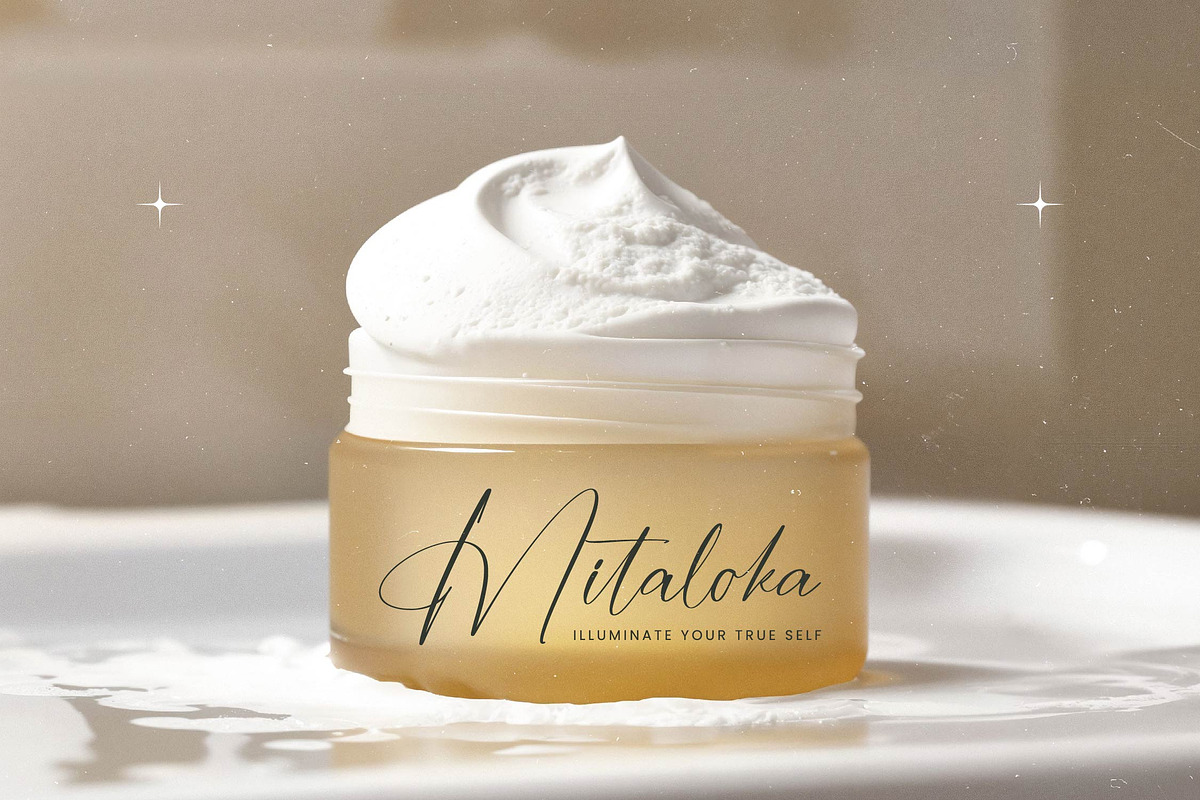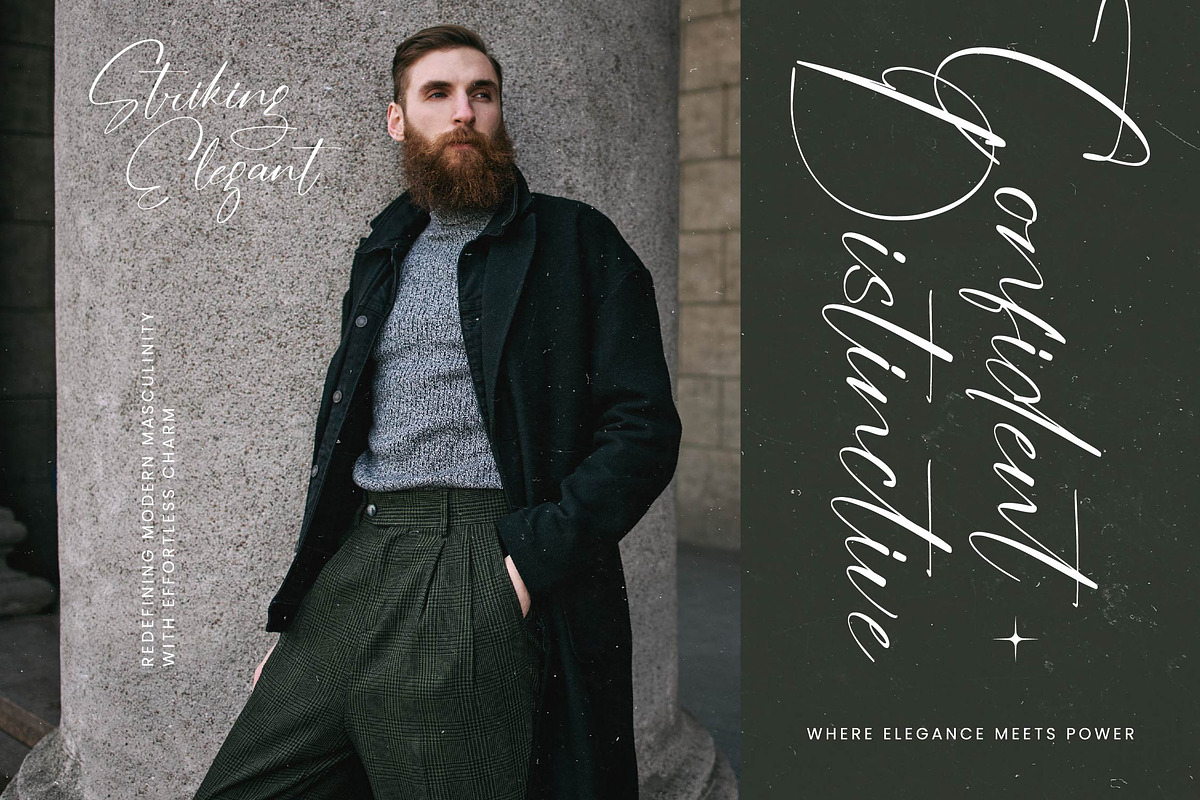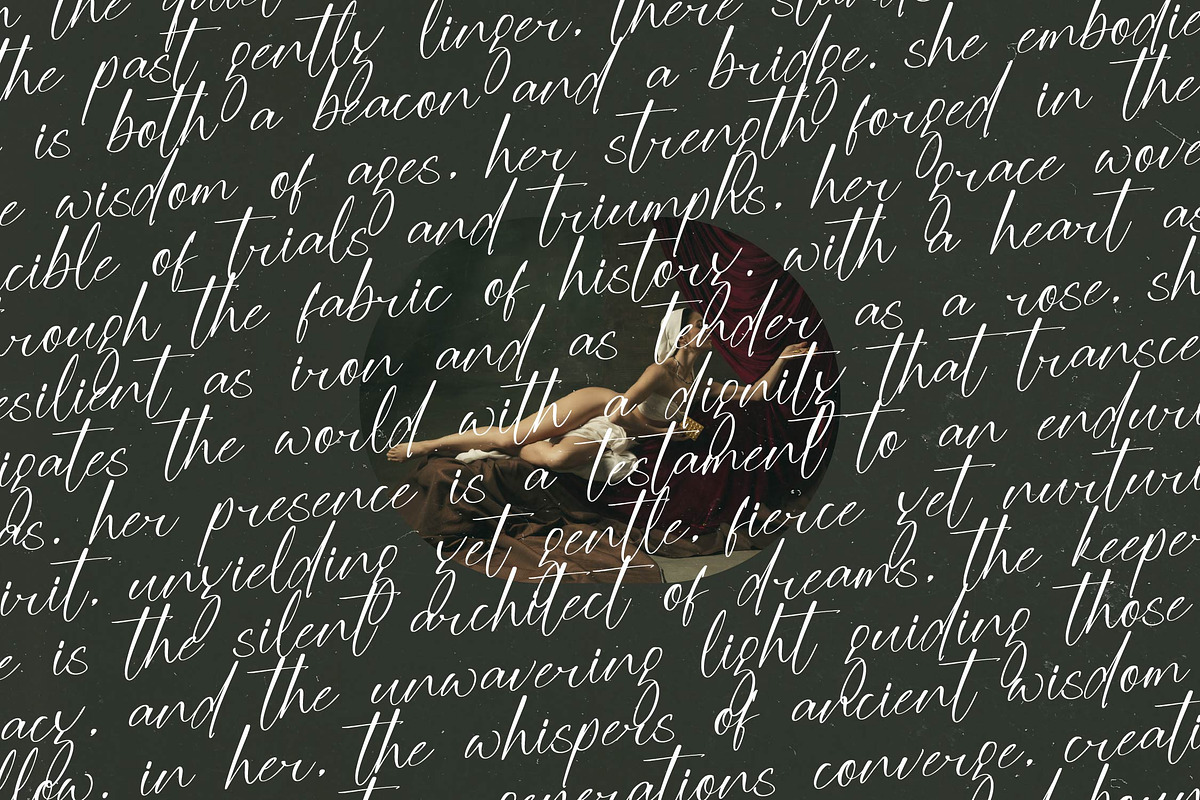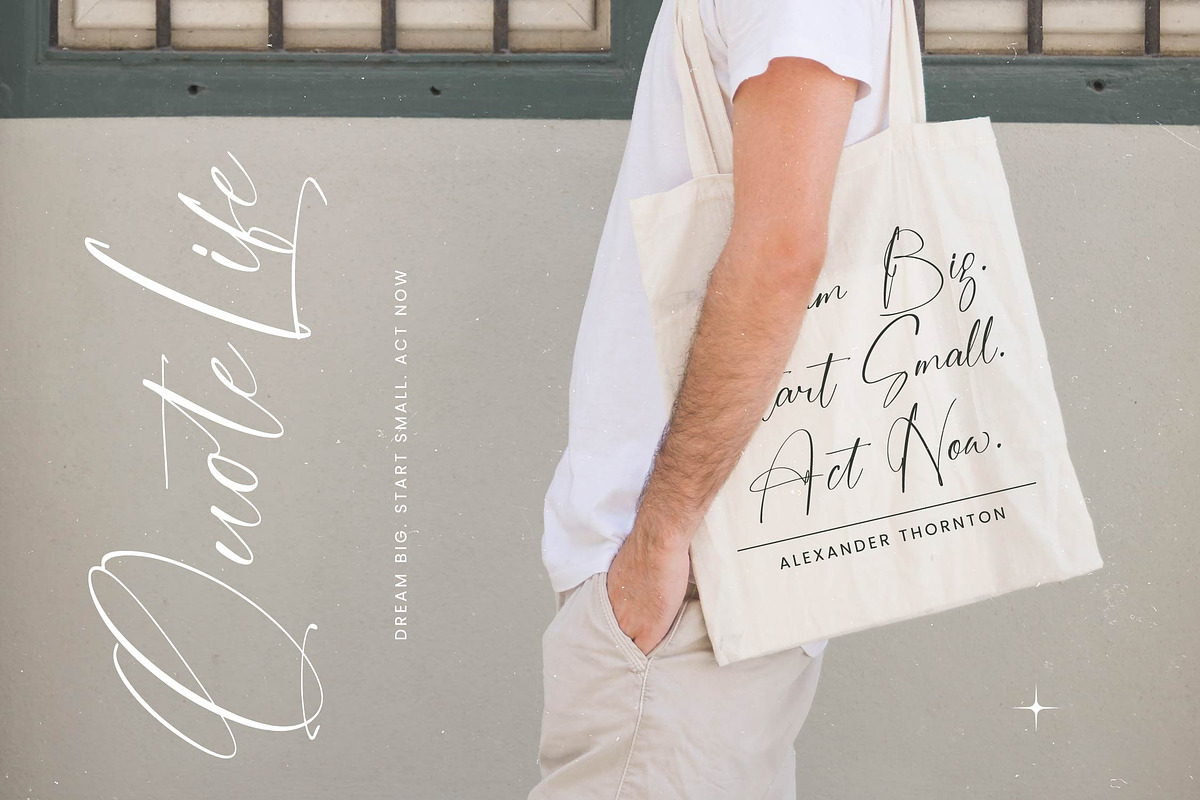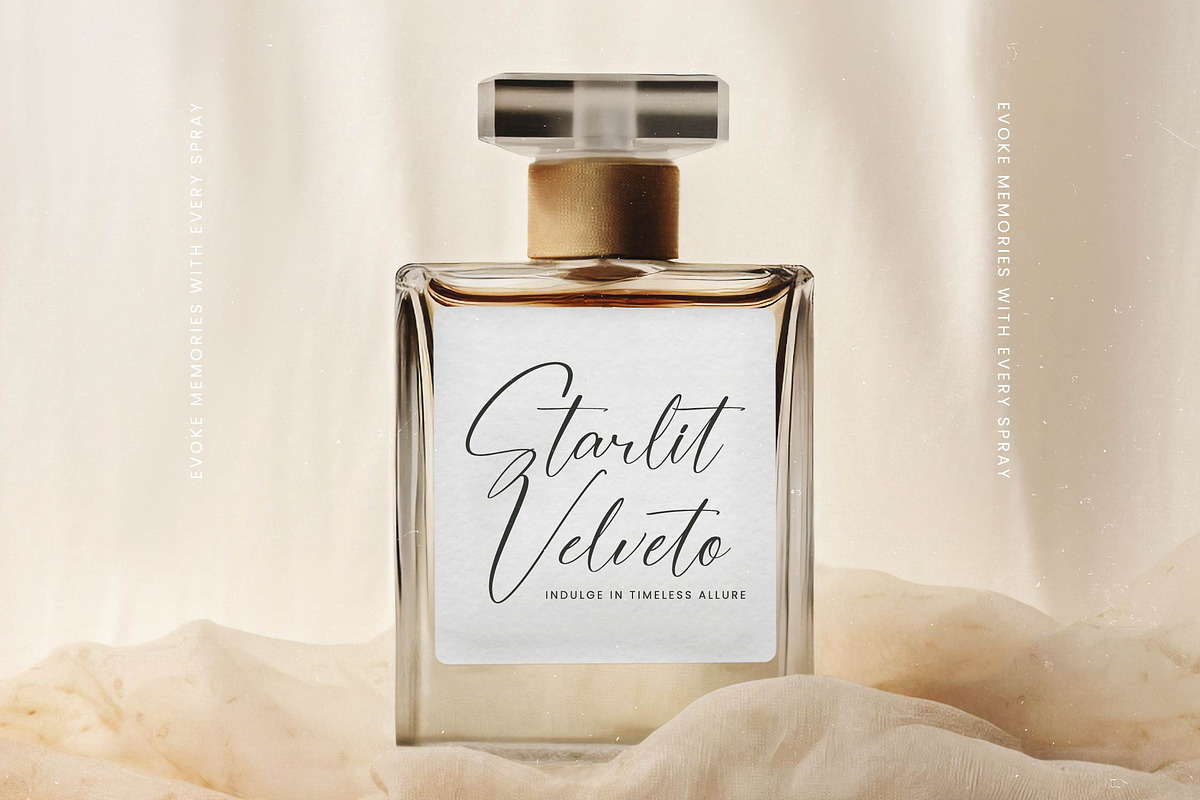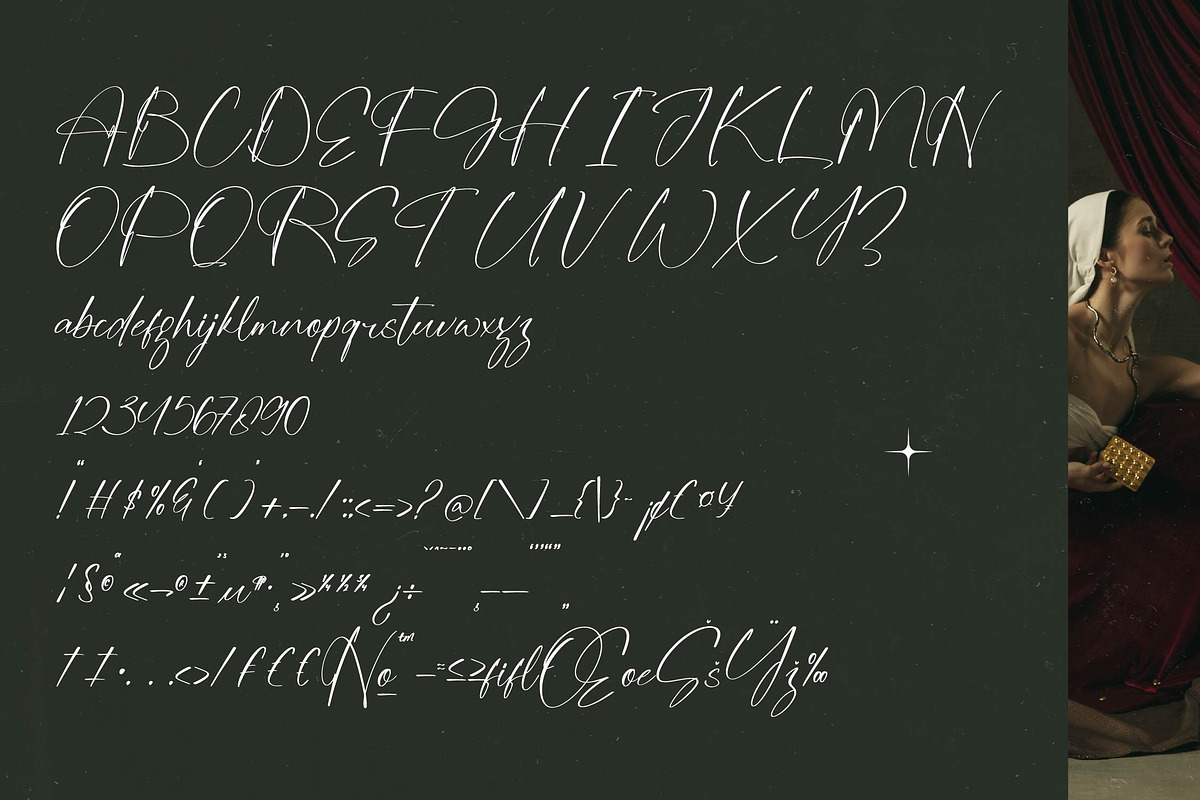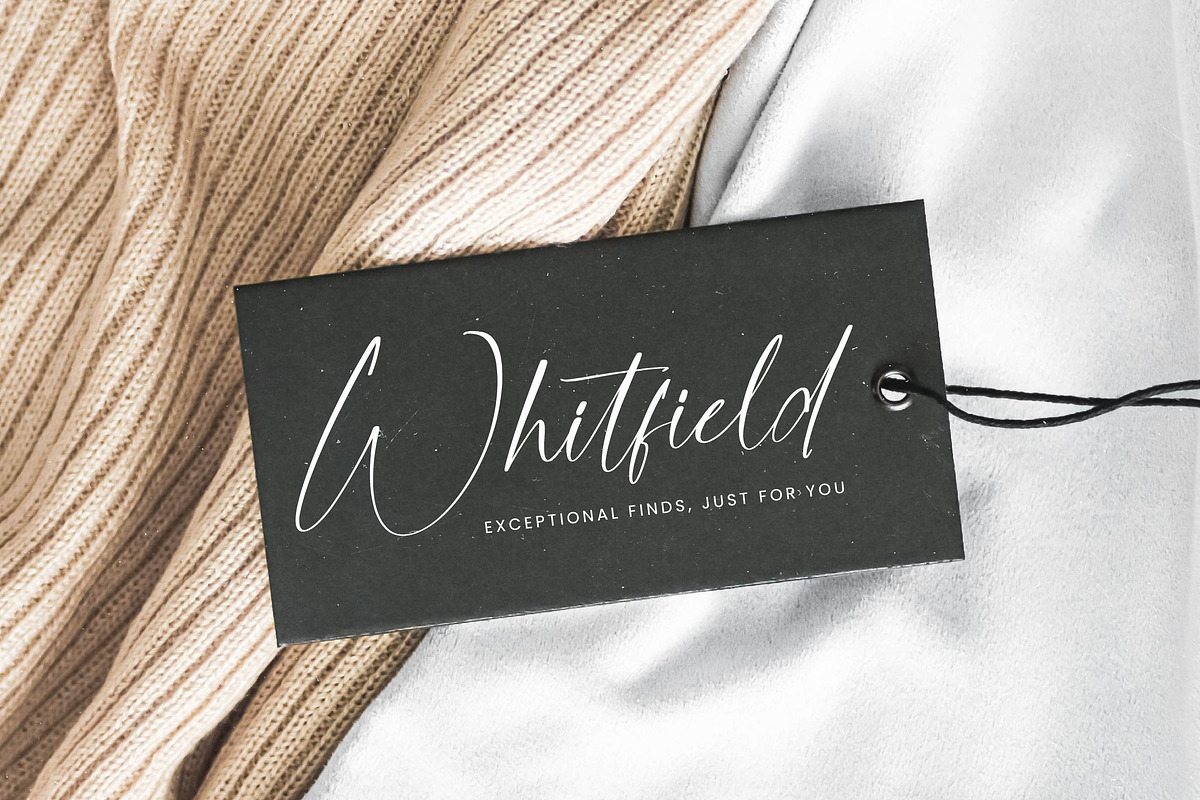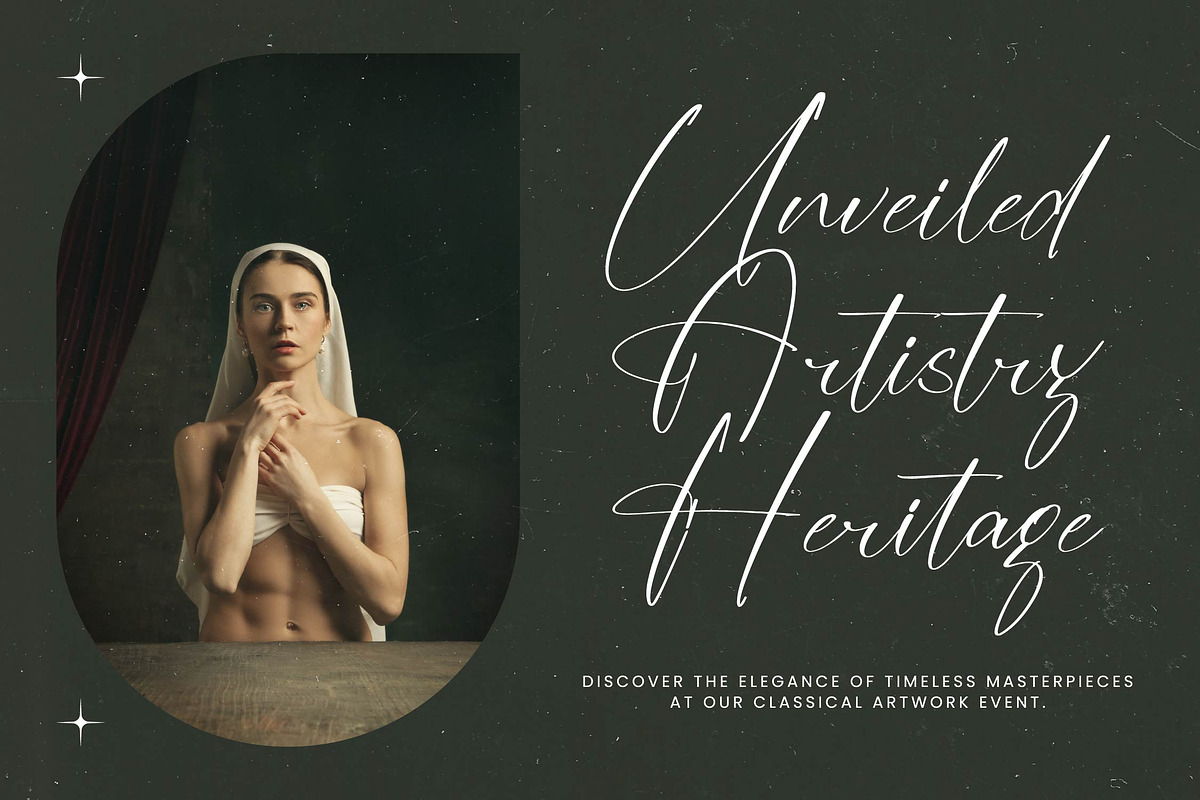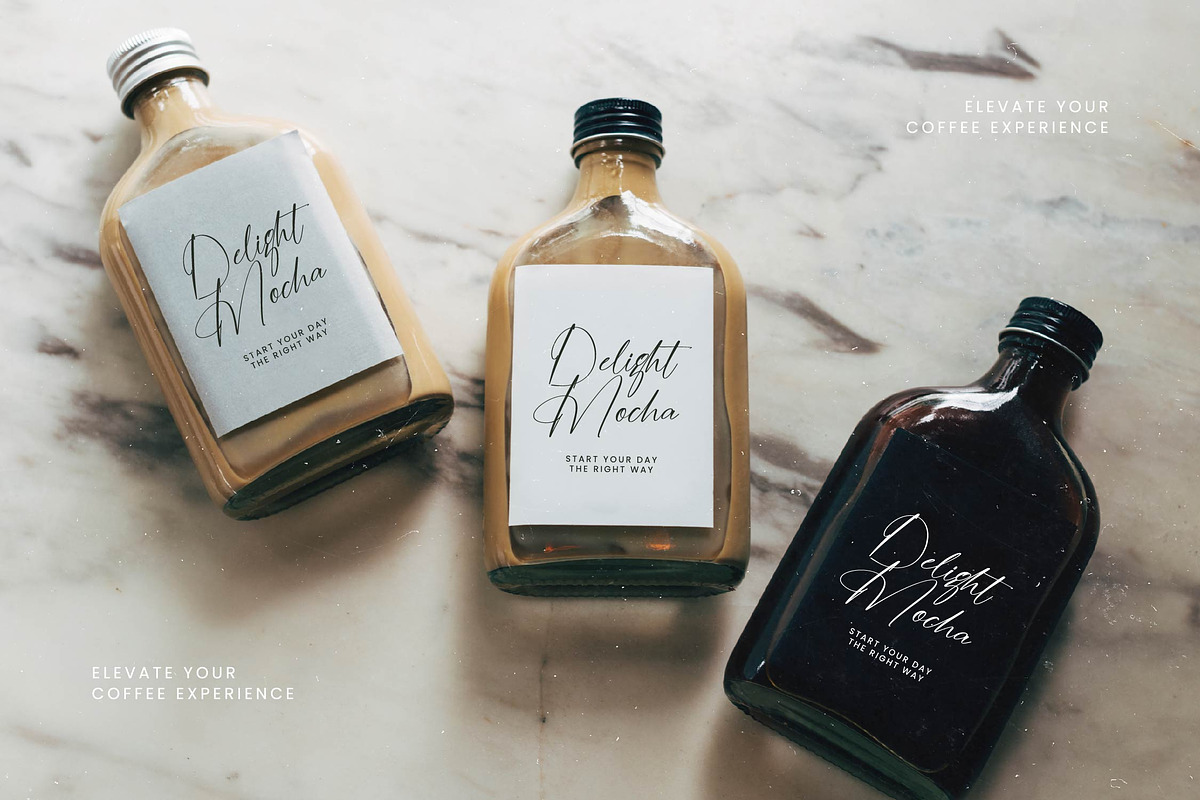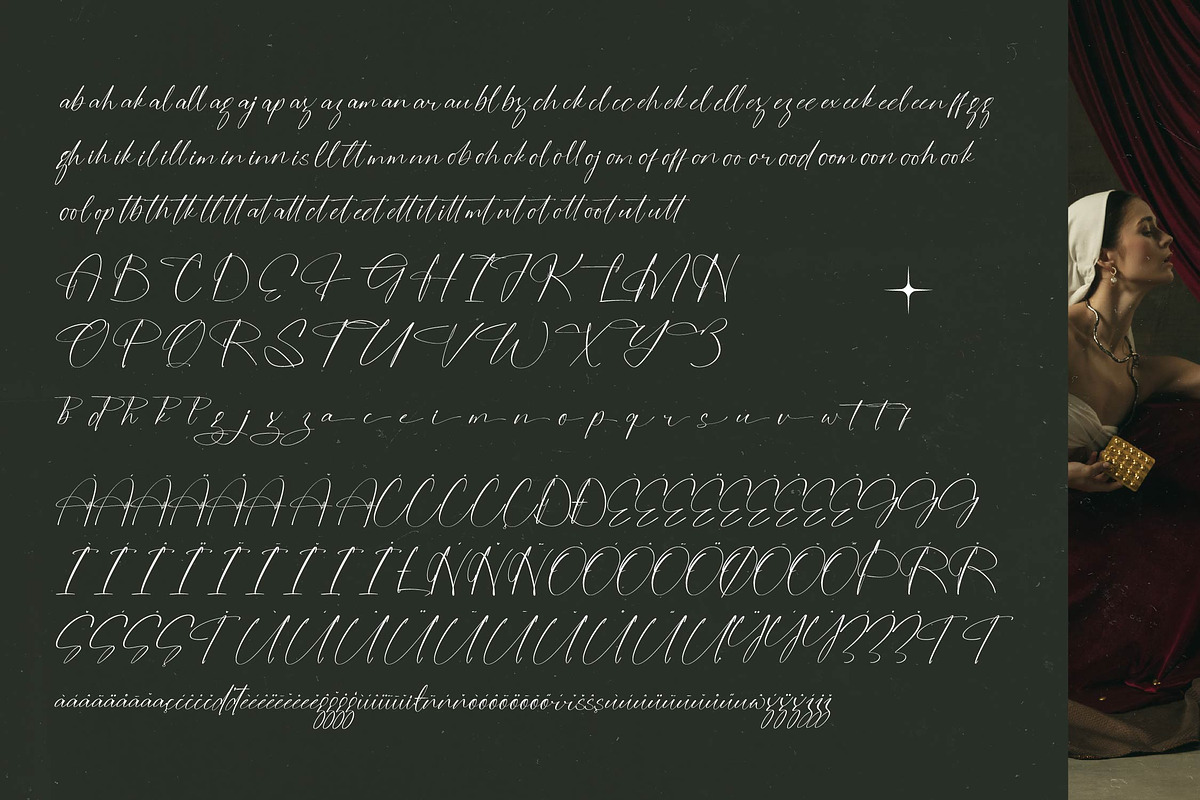
Mistycal Strengths Stylish Signature
Mistycal Strengths - Stylish Signature Font , from Stylishtype.Co , Suitable for any projects such as: logos, branding projects, homeware designs, product packaging, mugs, quotes, posters, shopping bags, t-shirts, book covers, name card, invitation cards, greeting cards, label, photography, watermark, special events, and all your other luxury and beautiful projects that need a Luxury Script taste.
- 85 Ligature 52 Alternates & Swashes